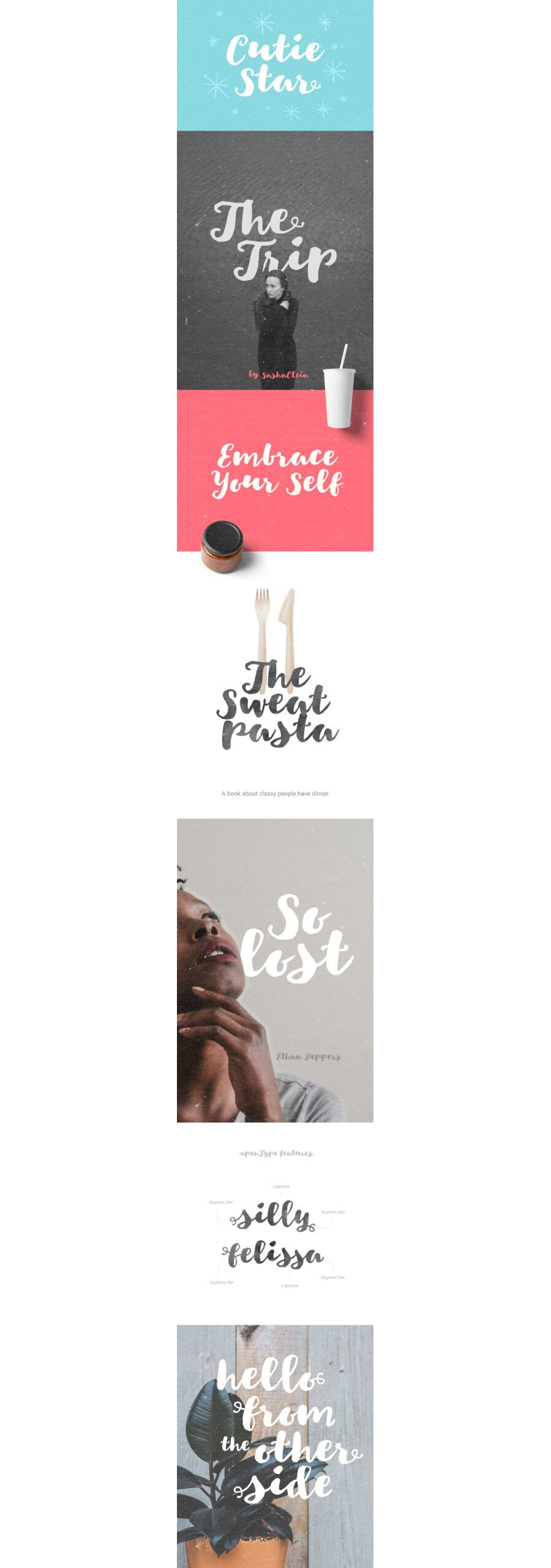
Cutie Star Free Font
Cutie Star Free Font is a modern brush script typeface with irregular baseline and natural hand written shapes. Drawn with regular brush pen and optimized to look like hand lettered brush.
Cutie Star comes up with a bunch of OpenType features such as stylistic set, contextual alternates, and ligature. Have fun with it to create stunning and attractive visual messages using this font.